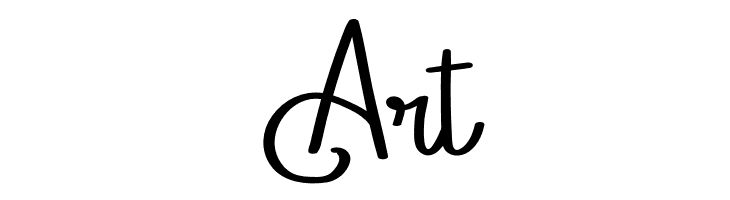
• ARBEI BERRY
A playful, handwritten font with bold, rounded strokes and a whimsical style.
• Arbery
A playful, casual handwritten font with smooth, flowing letterforms.
• Arbery
A playful, casual handwritten font with smooth, flowing lines.
• ArbhieScript
A modern, elegant script font with flowing curves and a handwritten feel.
• ArbhieScript
An elegant, flowing script font with smooth, connected strokes.
• Arbiy
A playful, handwritten script font with lively curves and unique swashes.
• Arbiy
A playful and whimsical script font with flowing, interconnected letters.
• ArbuckleInlineNF
A bold, inline font with geometric and playful characteristics.
• ArbuckleRemixNF
A bold, geometric font with playful and dynamic character designs.
• ARCADE
A bold, geometric font with a futuristic, arcade-inspired style.